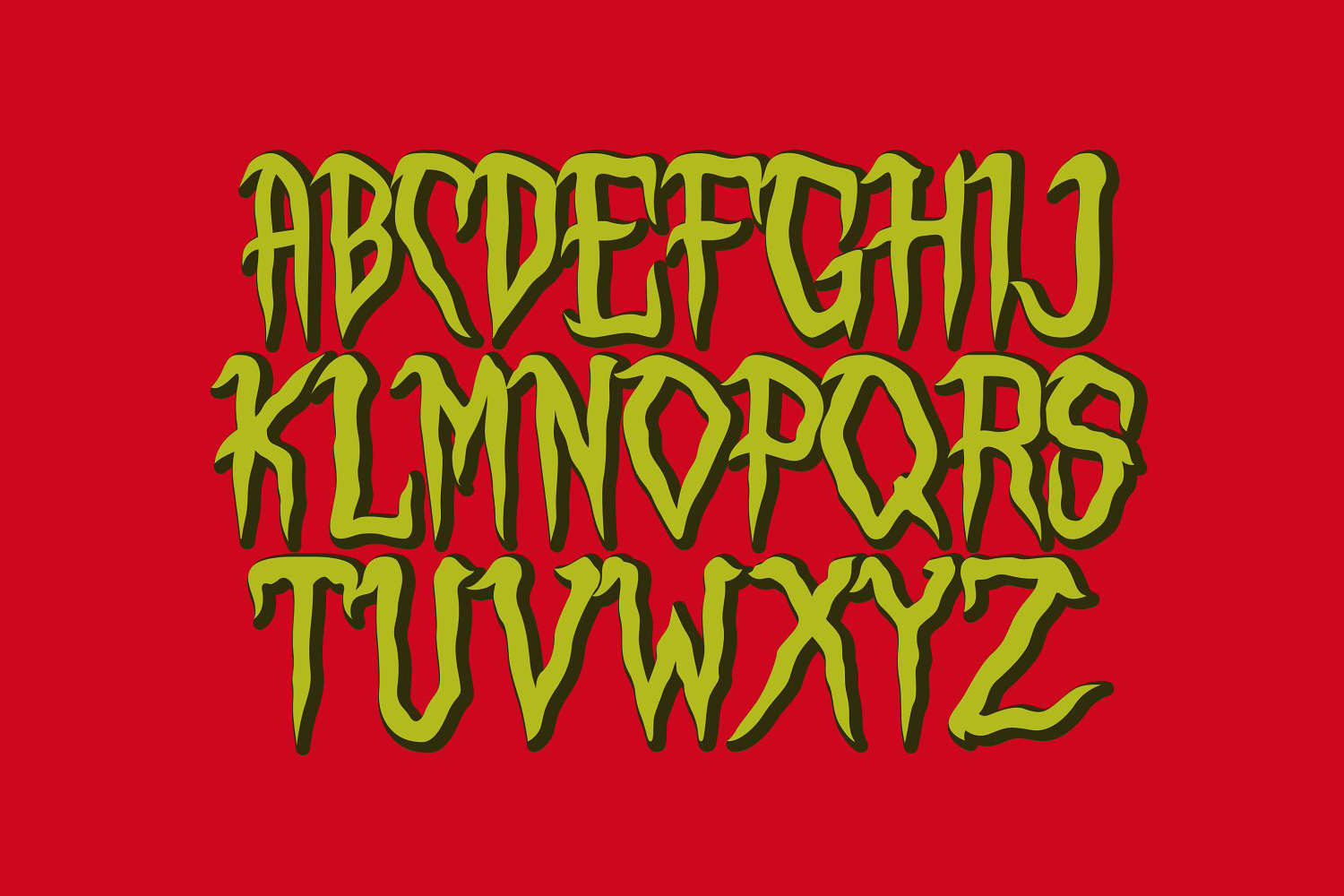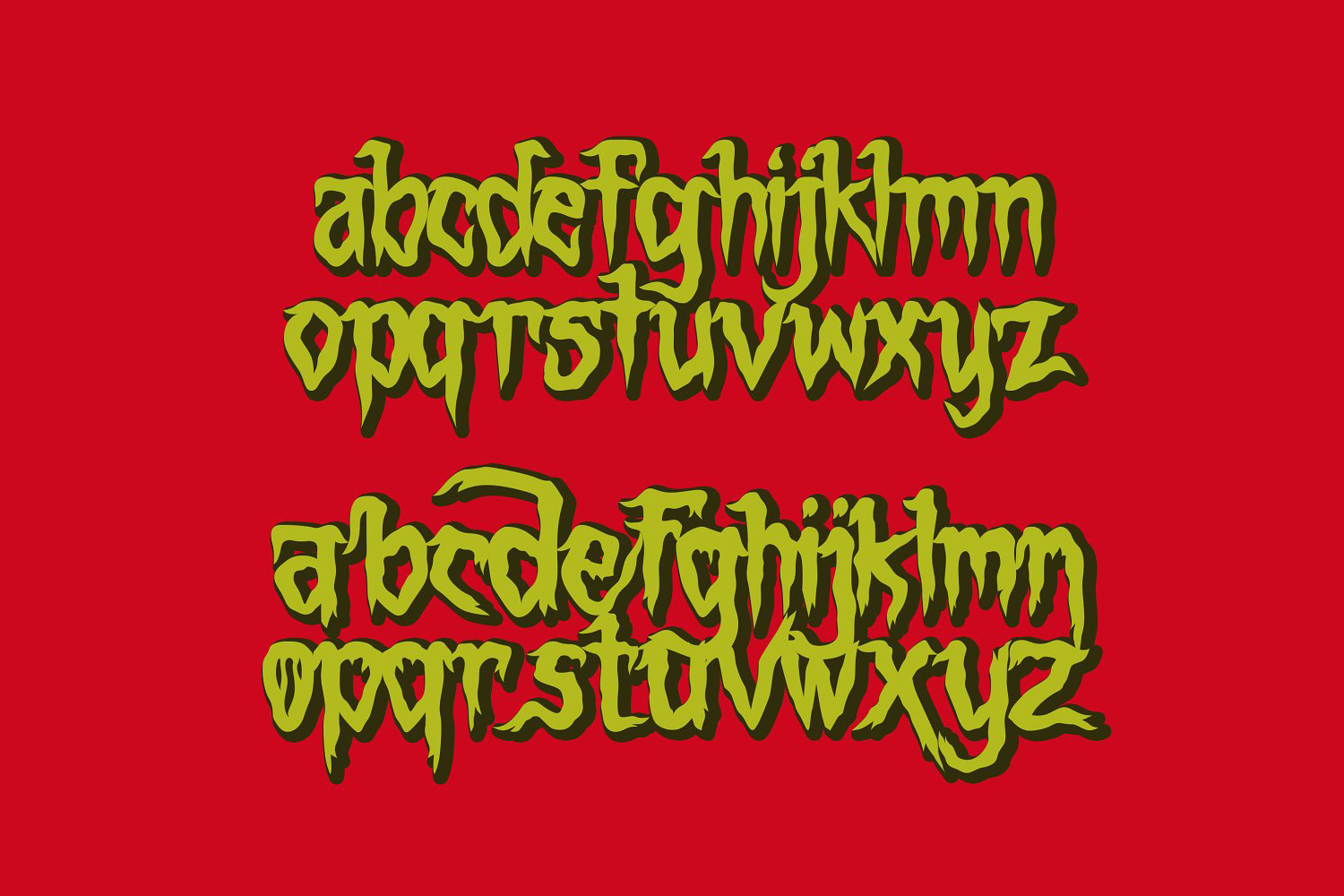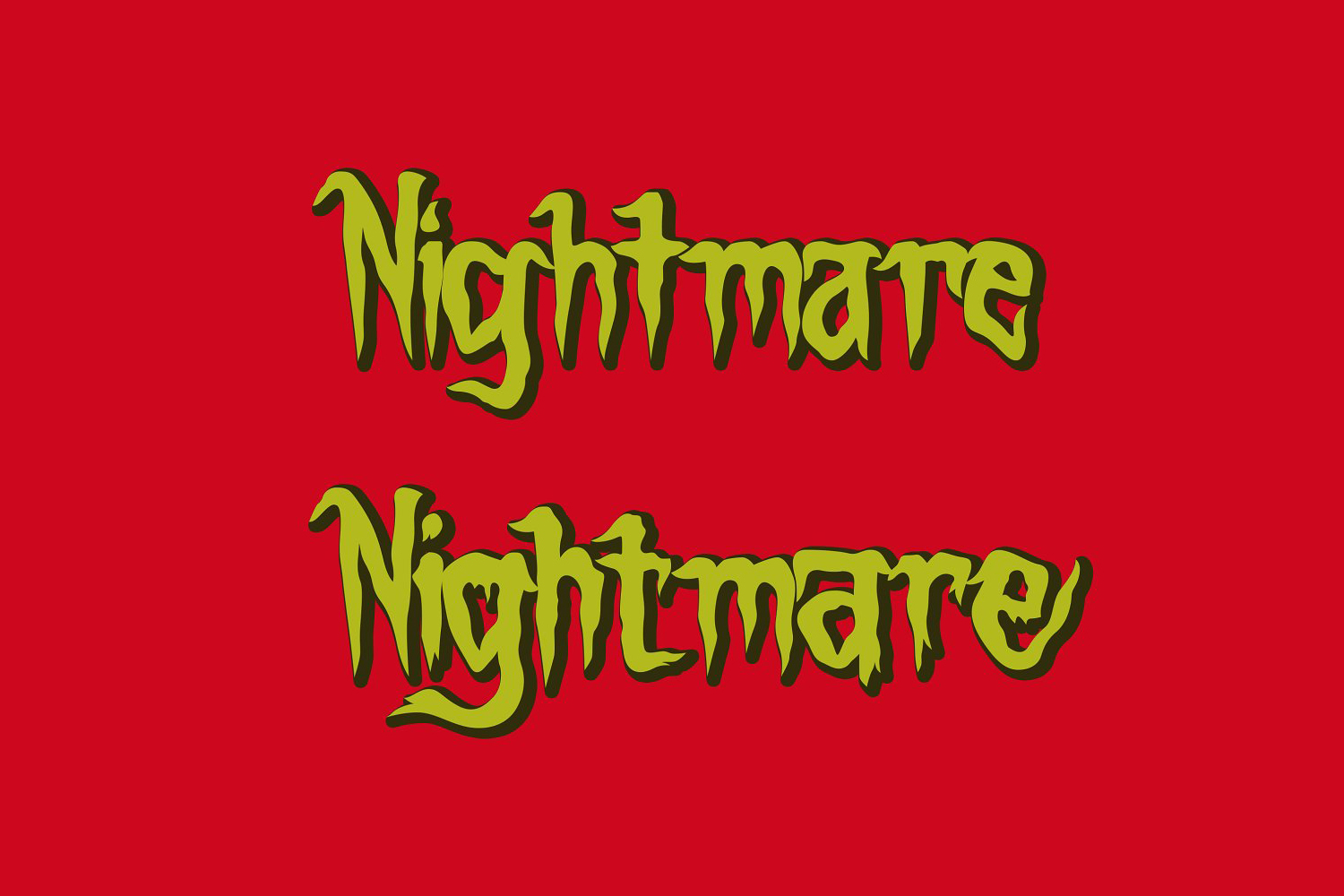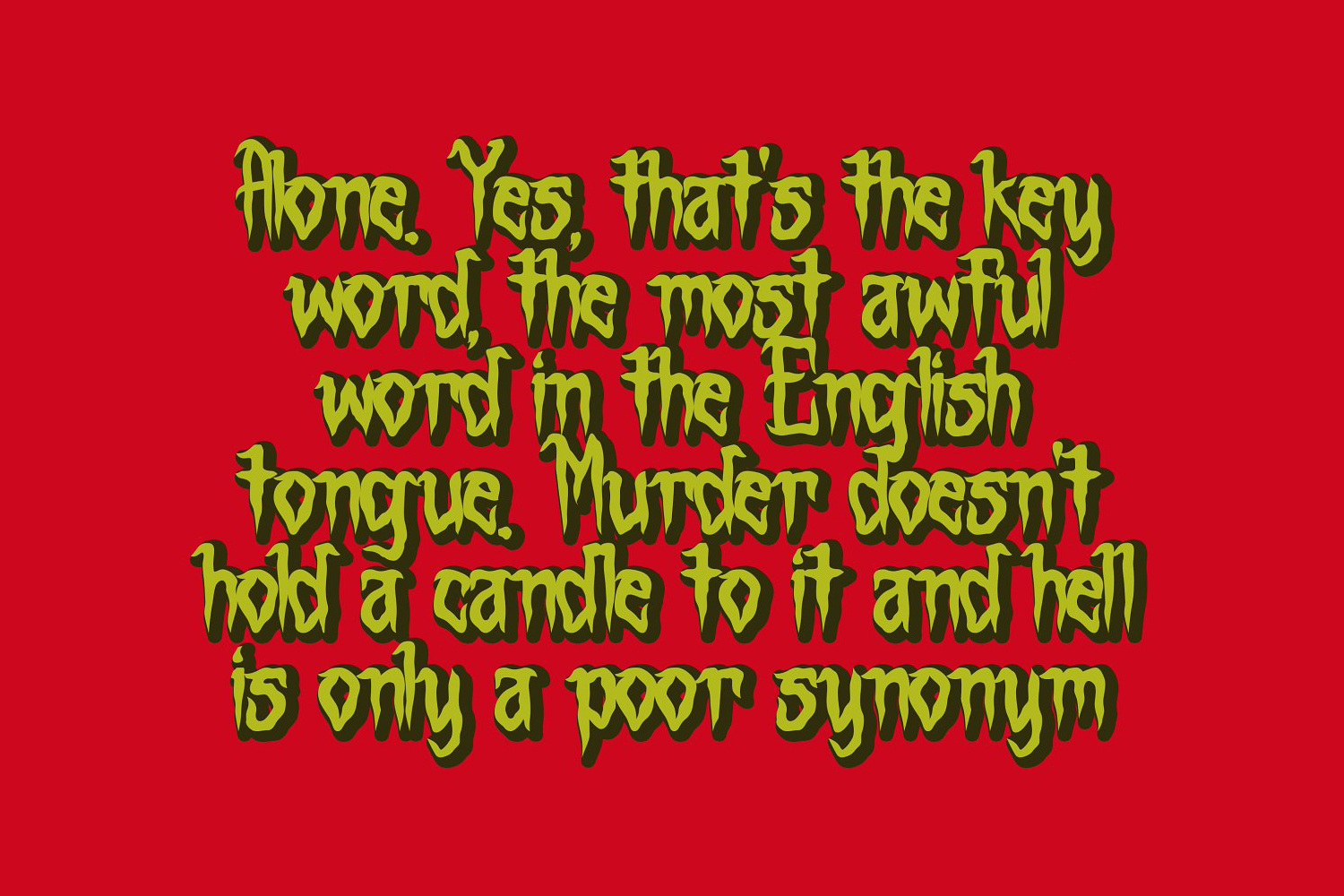
Counter Attack Free Font
Counter Attack Free Font is a horror display font. Dramatic and a bit spooky, this font is ideal for each of your Halloween designs.